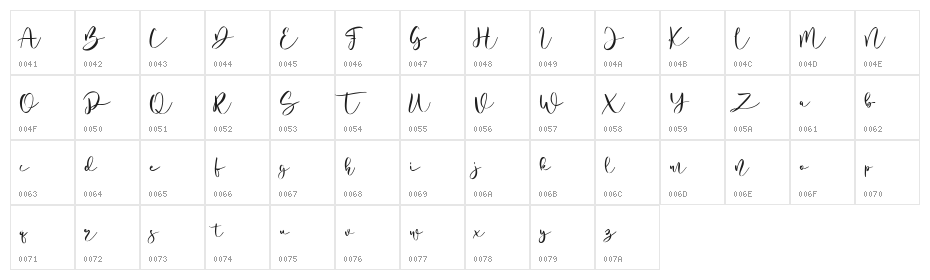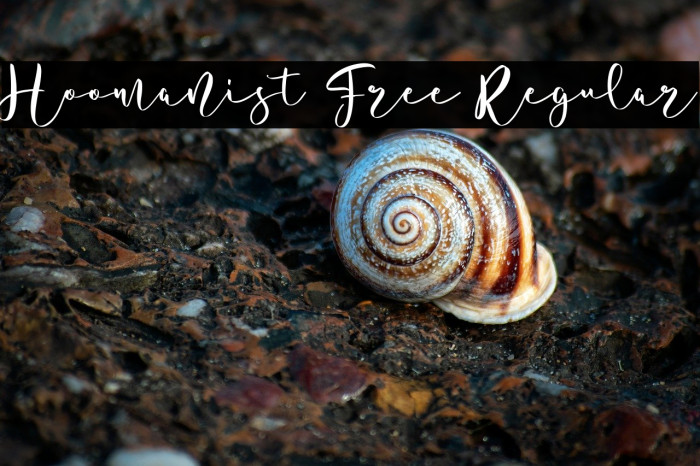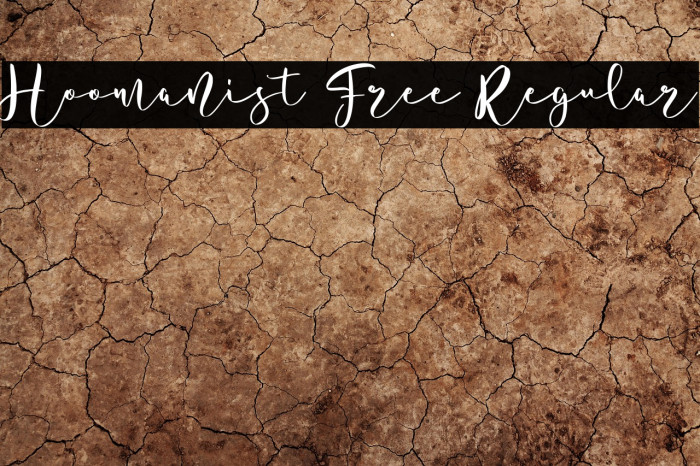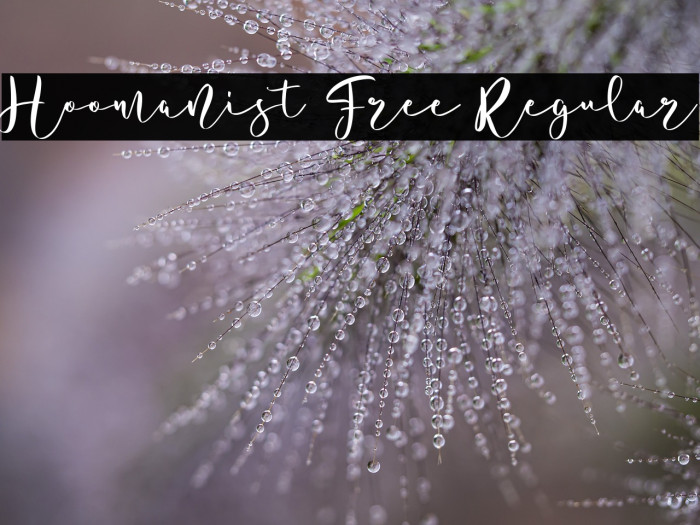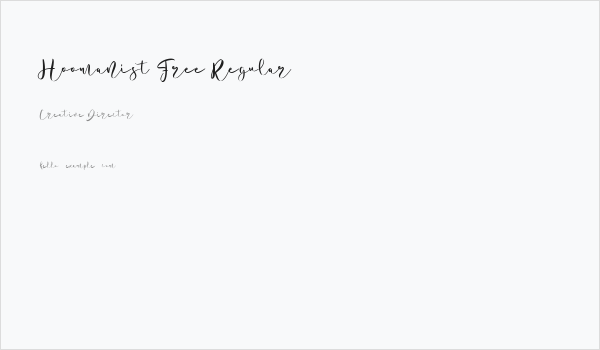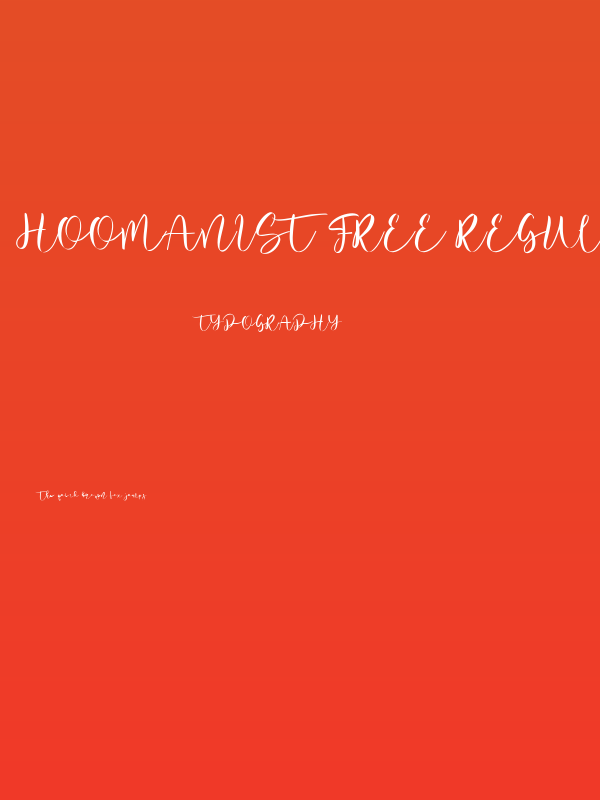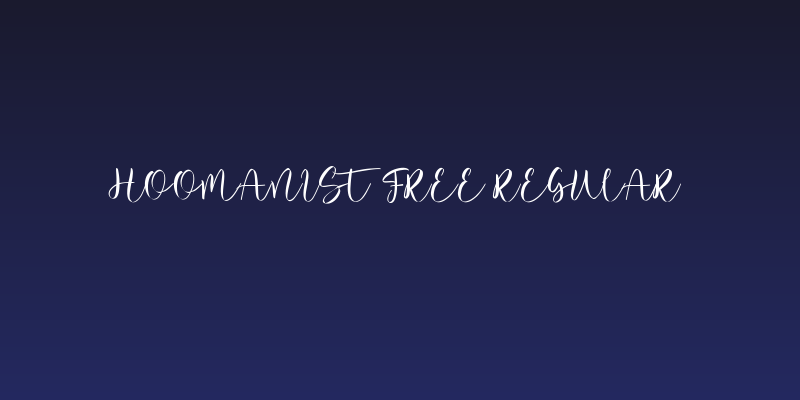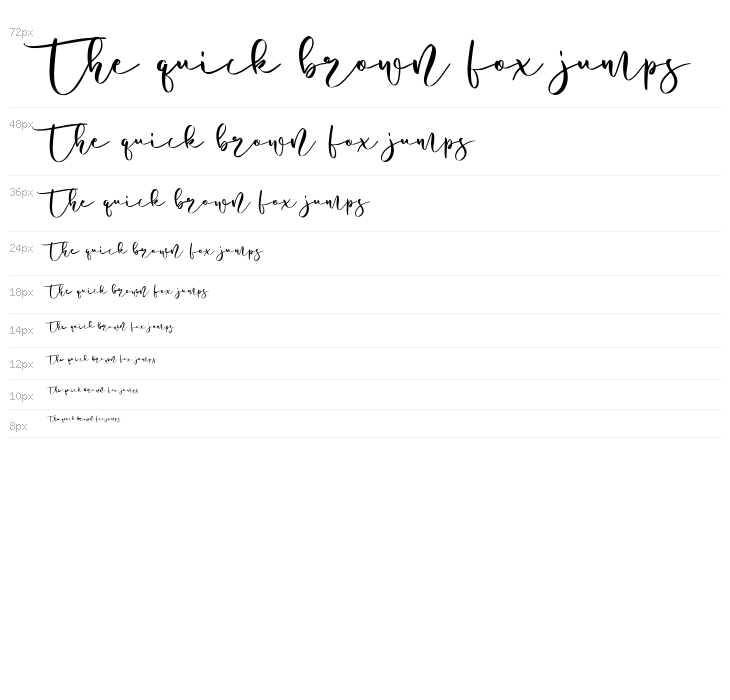
Hoomanist Free Regular Font
Hoomanist Free Regular Description
This font exhibits a flowing, cursive style with a modern touch. The characters are elegantly connected, creating a sense of fluidity and movement. The uppercase letters are bold and expressive, while the lowercase letters maintain a consistent, graceful appearance. The strokes vary in thickness, adding a dynamic quality to the text. This font is ideal for projects that require a personal, handwritten feel, such as invitations, greeting cards, or branding materials. Its artistic flair makes it suitable for creative applications where a touch of elegance is desired.
| Proposed Projects | Ideal for invitations, greeting cards, branding materials, and creative projects requiring a personal touch. |